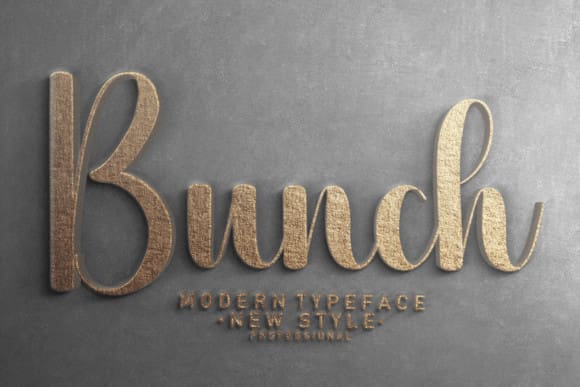
Bunch Script Font
Bunch Script Font is a flowing handwritten font, described by an elegant touch, perfect for your favorite projects. Fall in love with its incredibly distinct and timeless style and use it to create spectacular designs!